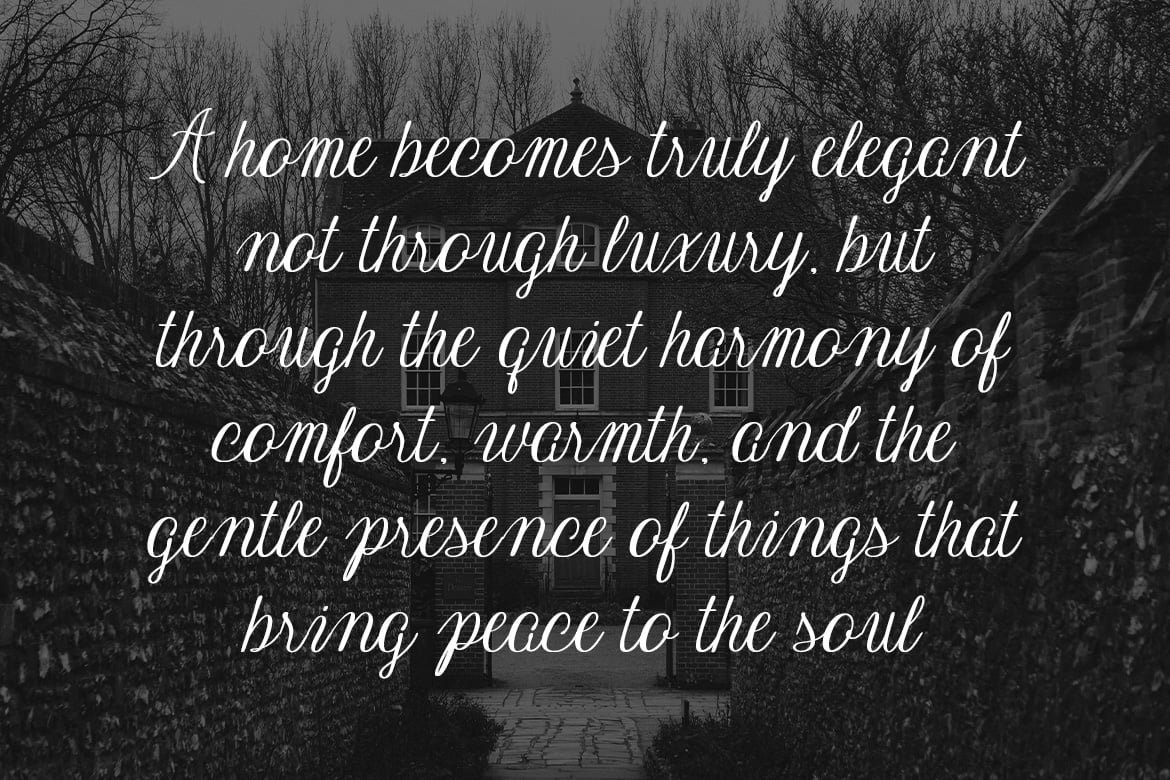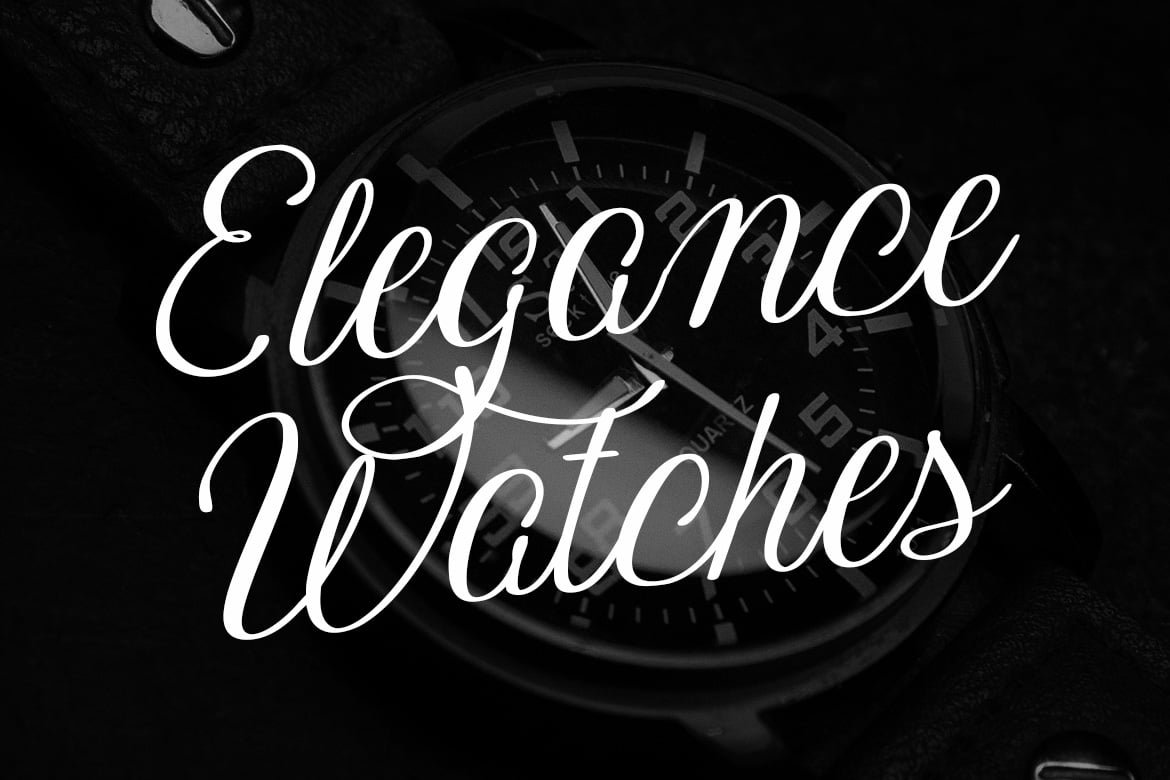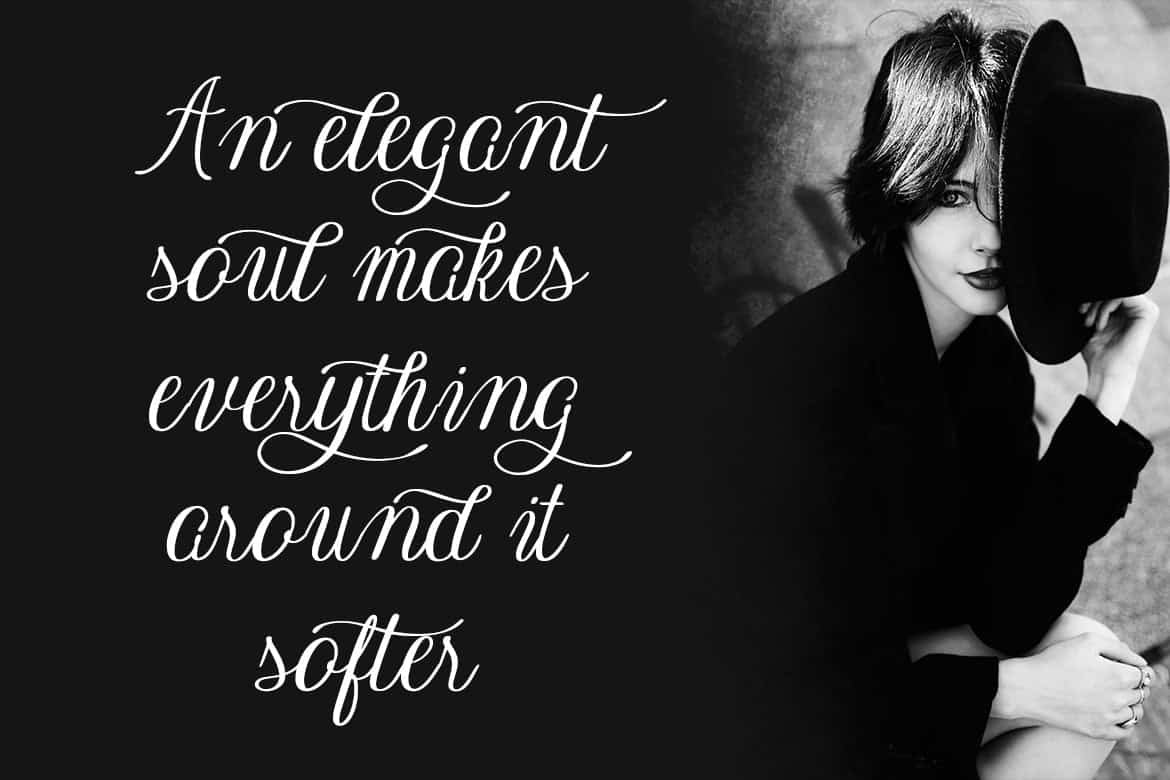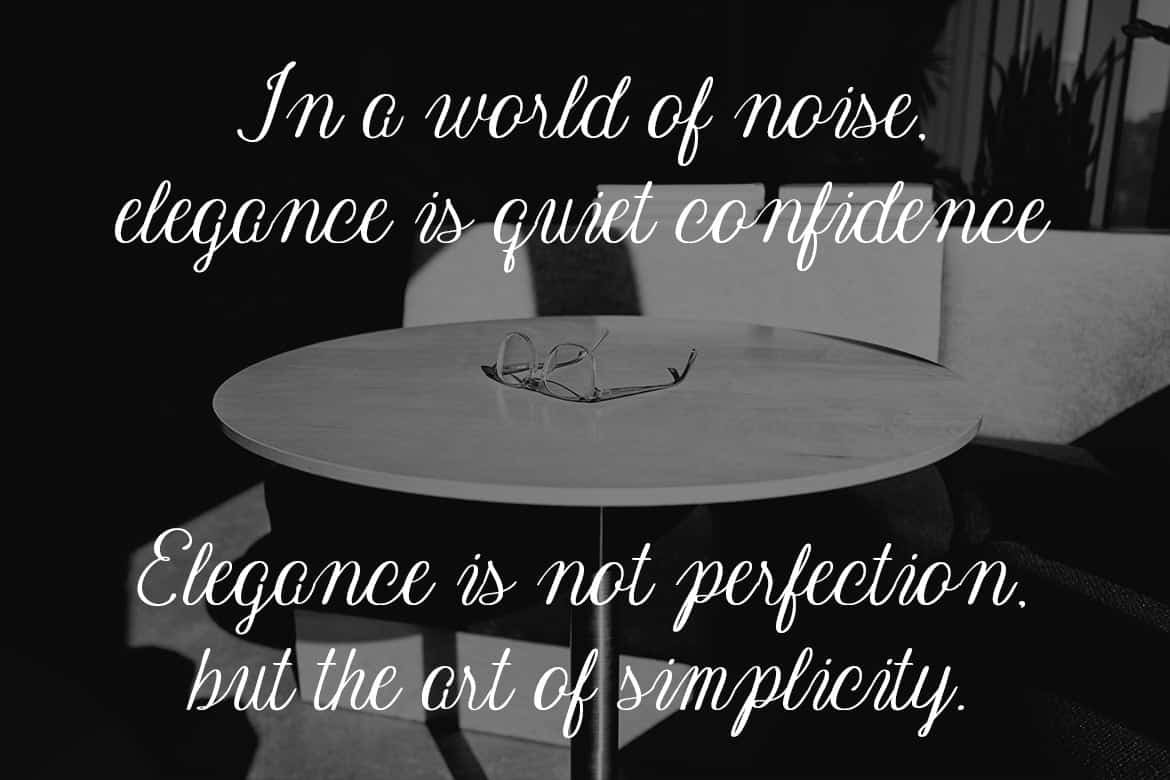
Saphirel – Elegant Handwritten Script Font
Saphirel is a refined handwritten script font with graceful strokes and luxurious feel. Ideal for high-end branding, wedding design, and editorial layouts.
- Uppercase Letters
- Ligature & Alternate Character
- Unique Hand-Drawn Style